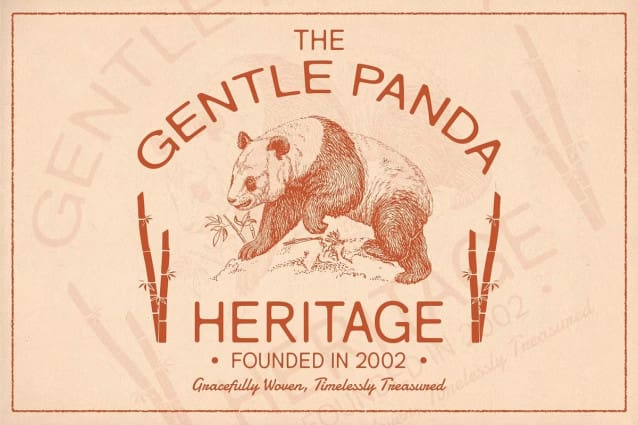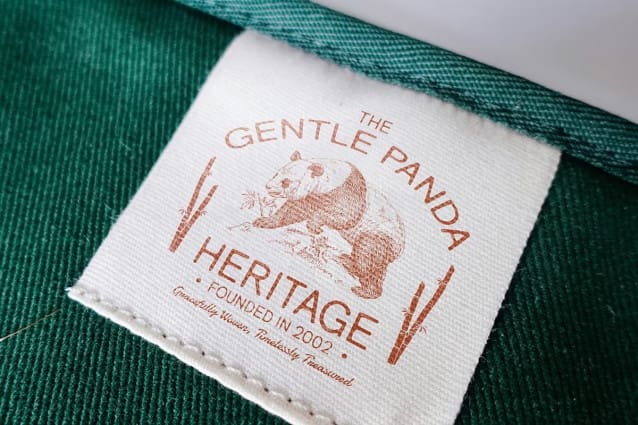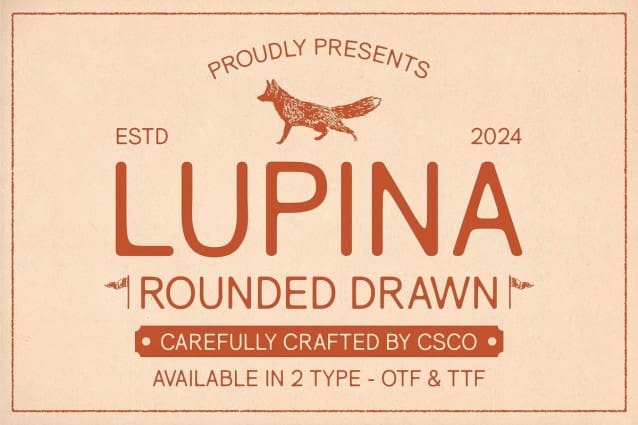
Lupina Rounded Drawn Font
Lupina Rounded Drawn Font is a modern sans-serif font that fuses the straightforward functionality of grotesque design with rounded shapes and an artistic drawn effect. The bold letterforms ensure a strong visual presence, while the rounded edges introduce a gentle, approachable feel. The hand-drawn effect brings an artisanal quality to the design, adding an extra layer of creativity and personality, making this font a perfect choice for designers seeking both modernity and uniqueness.
Ideal for Creative and Organic Branding This font is exceptionally versatile and ideal for a wide range of contemporary design projects. Its blend of strong structure and soft curves makes it suitable for creative branding, whimsical illustrations, product packaging, and editorial layouts. Whether your project requires a modern yet approachable look or a more artistic and personalized touch, this font is designed to capture attention while maintaining readability and style.
Modern, Unique, and Inviting The handcrafted, drawn effect adds a sense of warmth and individuality, making this rounded drawn font an excellent choice for projects where modern professionalism meets a creative, human-centric approach. It provides a balance between bold, functional design and a softer, organic aesthetic, ideal for companies, brands, or products aiming to communicate both strength and friendliness.